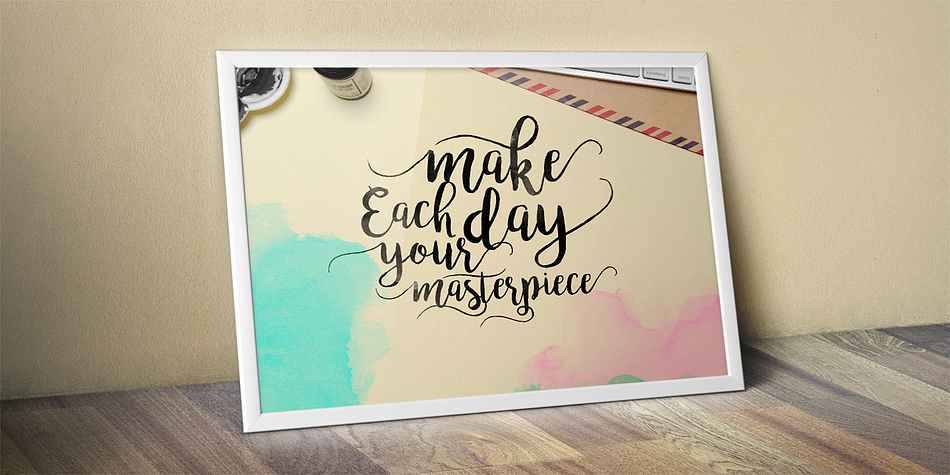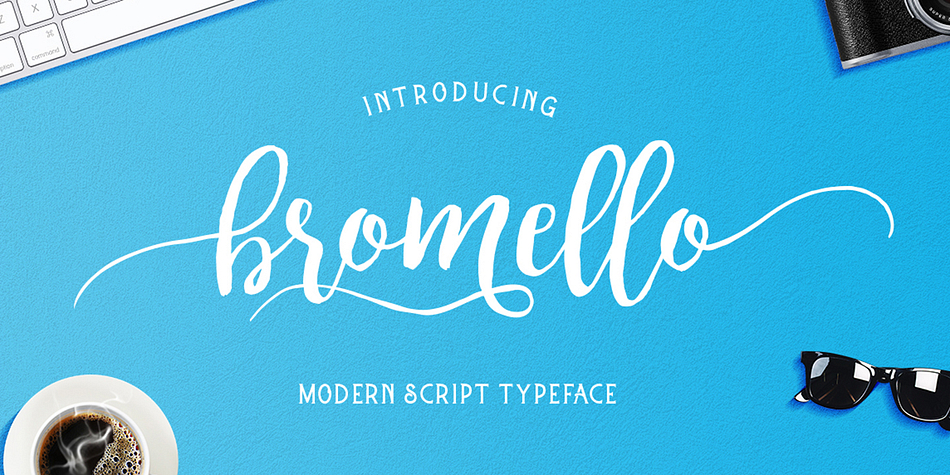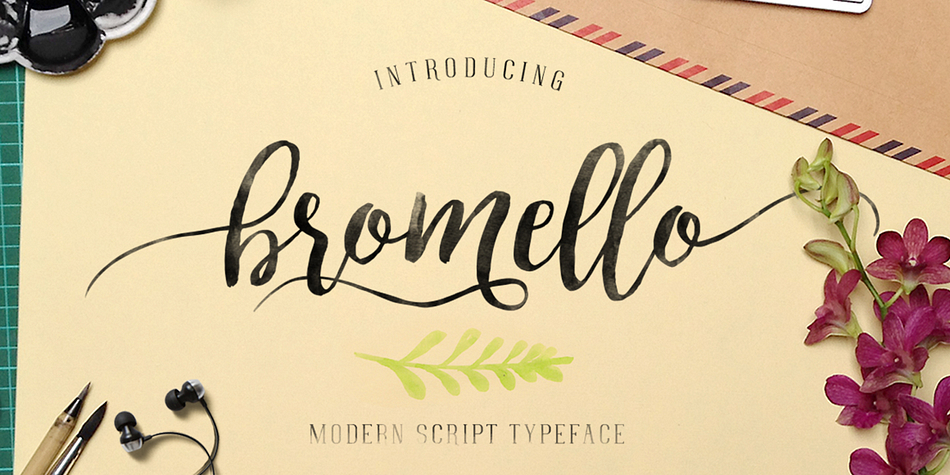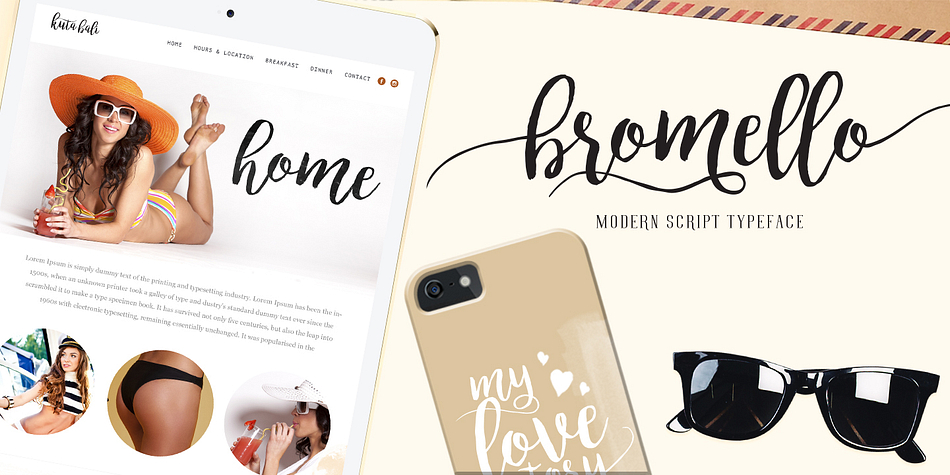
Bromello is a brush script font family. This typeface has two styles and was published by alitdesign.
introducing Bromello modern script typeface, using style hand made with brushing. Bromello a beautiful for wedding card design, logotype, website header, fashion design and any more.